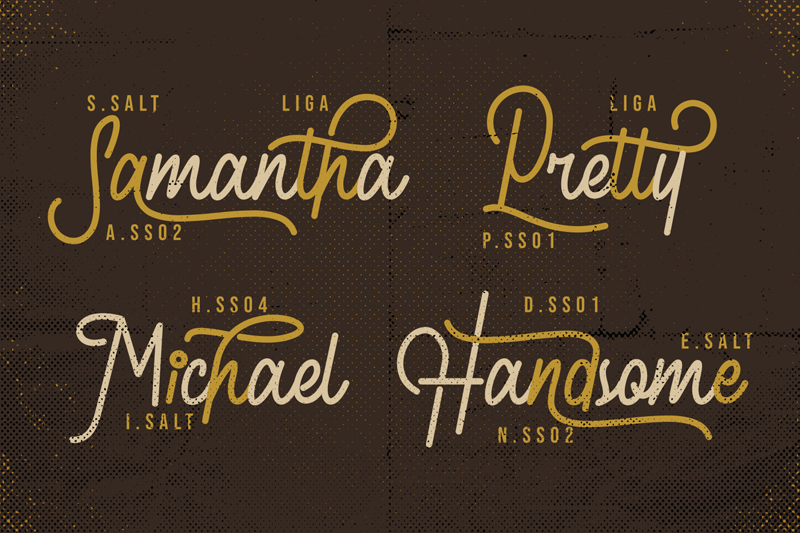
DETAILS Introducing, Retroville, monoline typeface with semi signature style. This monoline typeface will bring you to the new experience in typing. Perfect for logotype, headline, apparel, quotes, poster with vintage and exclusive feels. Whats Include? 1. Uppercase and lowercase characters 2. Supports international languages 3. Features: Uppercase, Lowercase, numeral & punctuation, multilanguage, stylistic alternates, and ligatures 4. Accessible in the Adobe Illustrator Glyphs panel, or under Stylistic Alternates in the Adobe Photoshop OpenType menu, Adobe InDesign, Corel Draw, even work on Microsoft Word. 5. TTF and OTF files PUA Encoded Characters - Fully accessible without additional design software. https://fontbundles.net/omotu/242676-retroville-monoline-typeface Full version and commercial license Thanks for looking, and I hope you enjoy it! Please don't hesitate to drop me a message if you have any issues or queries. Best Regards, ~ Omotu ~ ibnu.blawong2@gmail.com |